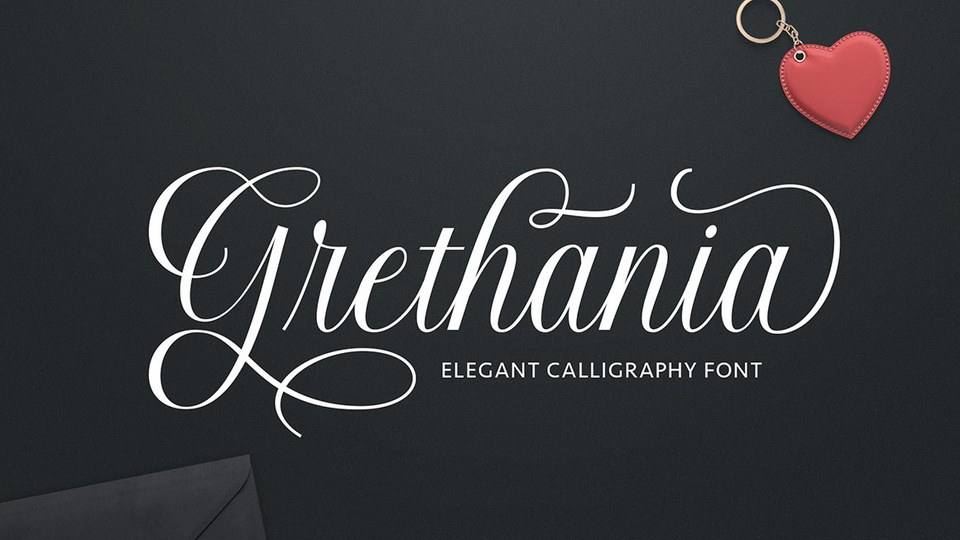
Download Grethania font, an elegant and flowing handwritten font. Grethania maintains its classy calligraphic influences while feeling contemporary and fresh.